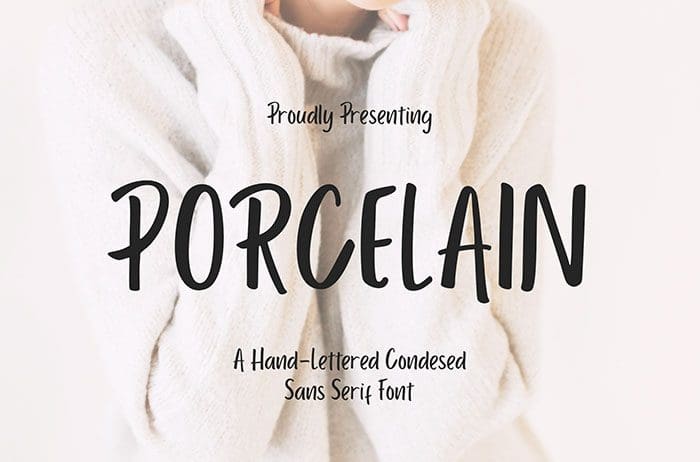
Porcelain Sans Serif Font
Porcelain is a hand-lettered condensed sans serif font with a subtle dip-pen texture to get that personal touch feel. Thanks to Creatype Studio for sharing this font! Take a look at this portfolio for more of his stunning fonts.